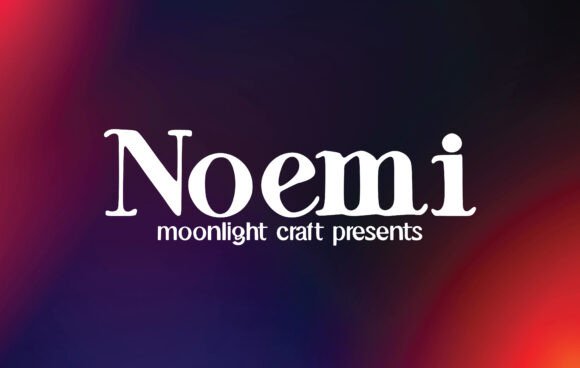
Noemi Font: Elevating Handmade Labels and Printables
Sitting at my workbench surrounded by soy wax jars, linen labels, and half-cut sticker sheets, I realized my packaging needed a typographic anchor that felt both grounded and refined. Noemi is a Slab Serif font that immediately caught my eye during this redesign phase because it balances sturdy structure with an approachable warmth that many other typefaces lack. When you are deep in the creative process of building a handmade brand, finding Fonts that can transition seamlessly from a bold product title to delicate body copy is rare, but this typeface delivers exactly that versatility. This font is designed to be a true favorite and it has the potential to take your creative ideas to the highest level, specifically when those ideas need to translate into tangible, sellable goods that customers want to touch and keep.
Noemi for Candle Labels and Boutique Packaging Design
Designing labels for small-batch candles requires a Slab Serif font like Noemi to perform double duty as both a decorative element and a functional information carrier. In my recent test run for a lavender and sage collection, I used Noemi for the scent name on a 2x3 inch matte vinyl label, and the legibility was immediate even at smaller point sizes. The thick serifs provide enough ink coverage to look crisp against textured paper or matte finishes, which is crucial when you are printing at home or using a local print shop for boutique packaging. Unlike thinner display fonts that might break up on rough cardstock, Noemi maintains its integrity, ensuring your customer can read the burn time and safety instructions without squinting. This font is legible and looks great as a title or body text, making it ideal for the hierarchy needed on compliance-heavy candle labels where aesthetic appeal cannot compromise safety information. When pairing this typeface with a simple sans serif for the fine print, the contrast creates a premium editorial look that elevates the perceived value of the entire jar.
Using Noemi for Wedding Stationery and Formal Invitations
Creating wedding invitation suites demands Fonts that convey romance without sacrificing readability, and Noemi offers a modern alternative to traditional scripts for couples wanting a contemporary yet timeless feel. As a stationery designer, I appreciate how this Slab Serif font brings a sense of stability to welcome signs and seating charts while retaining enough elegance for formal correspondence. When designing a mockup for a fall wedding suite, Noemi worked beautifully for the couple’s names in large display size, anchoring the design with confident strokes that photographed well for digital portfolio previews. The font’s open counters prevent it from feeling heavy or blocky, which is essential when working with letterpress or foil stamping techniques where ink spread can close up tighter typefaces. For makers selling editable Canva templates or Corjl files, including Noemi gives buyers a sophisticated option that stands out in a marketplace saturated with generic calligraphy. It pairs exceptionally well with a flowing handwritten font for secondary details, creating a balanced visual rhythm that guides the guest’s eye through the event information effortlessly.
Noemi in Printable Wall Art and Digital Download Listings
Digital product creators know that thumbnail visibility is everything, and Noemi provides the bold clarity needed for printable wall art listings on competitive platforms. When I design motivational quotes or nursery decor prints, this Slab Serif font allows me to create impactful typography-only designs that don't require complex illustrations to sell. The weight distribution in Noemi ensures that black text on a white background pops in small preview images, helping potential buyers recognize the style instantly while scrolling. Because this font is designed to be a true favorite and it has the potential to take your creative ideas to the highest level, I find myself returning to it for seasonal collections where quick turnaround and high impact are necessary. Whether you are creating a minimalist kitchen conversion chart or a bold affirmation poster, the typeface scales up without pixelation or awkward spacing issues. For sellers offering commercial licenses, highlighting Noemi’s versatility in your listing description can attract other designers looking for reliable, high-quality assets for their own client work.
Crafting Stickers and Planner Accessories with Noemi
Vinyl cutting machines require specific geometric considerations, and Noemi is surprisingly friendly for Cricut and Silhouette users creating planner stickers and laptop decals. Many Slab Serif fonts have fragile connections that snap during weeding, but Noemi features robust junctions that hold together even when cut at small sizes for functional planner headers. I recently tested this font for a set of "monthly budget" dashboard stickers, and the clean lines allowed for easy weeding without tearing the delicate serif terminals. This font is legible and looks great as a title or body text, which means you can use the same typeface family for both the main category header and the smaller sub-labels within a single sticker sheet. For makers selling physical sticker packs, this consistency builds brand recognition across different product lines. When preparing cut files, always check the included alternates and ligatures, as these special characters can add unique flair to standard words and differentiate your handmade stickers from mass-produced competitors.
Typography Pairings and Commercial Licensing for Makers
Maximizing the utility of Noemi involves understanding how to pair it effectively within your existing library of Fonts to create cohesive shop branding. As a versatile Slab Serif font, it acts as a perfect bridge between ornate scripts and utilitarian sans serifs, grounding your visual identity without overpowering it. For product photography watermarks or social media graphics, try pairing Noemi with a light-weight monoline script to soften the overall mood while maintaining professional polish. Before launching any new product line featuring this typeface, diligent makers must verify the specific licensing terms regarding merchandise, digital templates, and logo usage. Checking for multilingual support is also vital if you plan to sell internationally or create bilingual packaging, as missing glyphs can ruin an otherwise perfect design. Understanding these technical details ensures that your creative investment remains safe and profitable. By respecting the font foundry's terms and leveraging Noemi’s inherent strengths, you build a sustainable design practice that honors both the artist who created the typeface and the customers who love your finished products.
Optimizing Readability for Tote Bags and Apparel Printing
Printing text on fabric presents unique challenges due to texture and absorption, yet Noemi performs exceptionally well for screen printing and heat transfer vinyl applications on tote bags and t-shirts. The substantial stroke width of this Slab Serif font ensures that letters remain visible against woven canvas or heathered cotton, avoiding the faded look that plagues thinner display fonts. When designing a reusable market bag for a zero-waste shop, I found that Noemi conveyed an eco-conscious, artisanal vibe that aligned perfectly with the sustainable mission of the product. This font is legible and looks great as a title or body text, allowing for longer slogans or mission statements on apparel without becoming visually cluttered. For DTG (Direct to Garment) printing, the solid fills of Noemi reduce banding issues and ensure vibrant color saturation. Makers should always print a physical proof before bulk production to test how the serifs interact with the specific fabric weave, as this hands-on verification step prevents costly reprints and ensures customer satisfaction with the final wearable art.